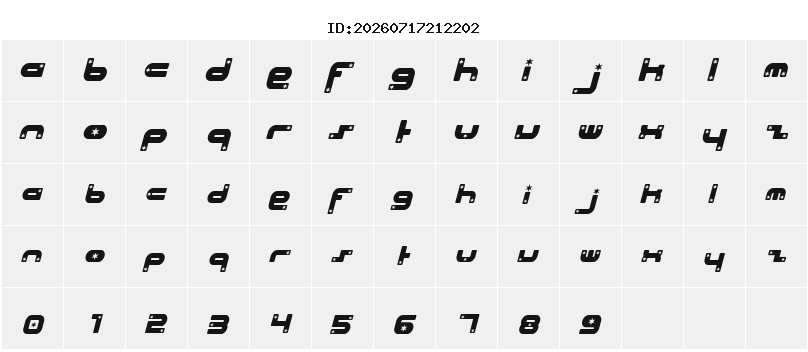
Beach House Stars Preview
• Font Name: Beach House Stars
• Font ID: Beach House Stars Italic
• Full Font Name: Beach House Stars Italic
Beach House Stars.ttf is a modern, elegant sans-serif font designed for ultimate readability and visual harmony. Perfect for branding, headlines, web design, and print materials.